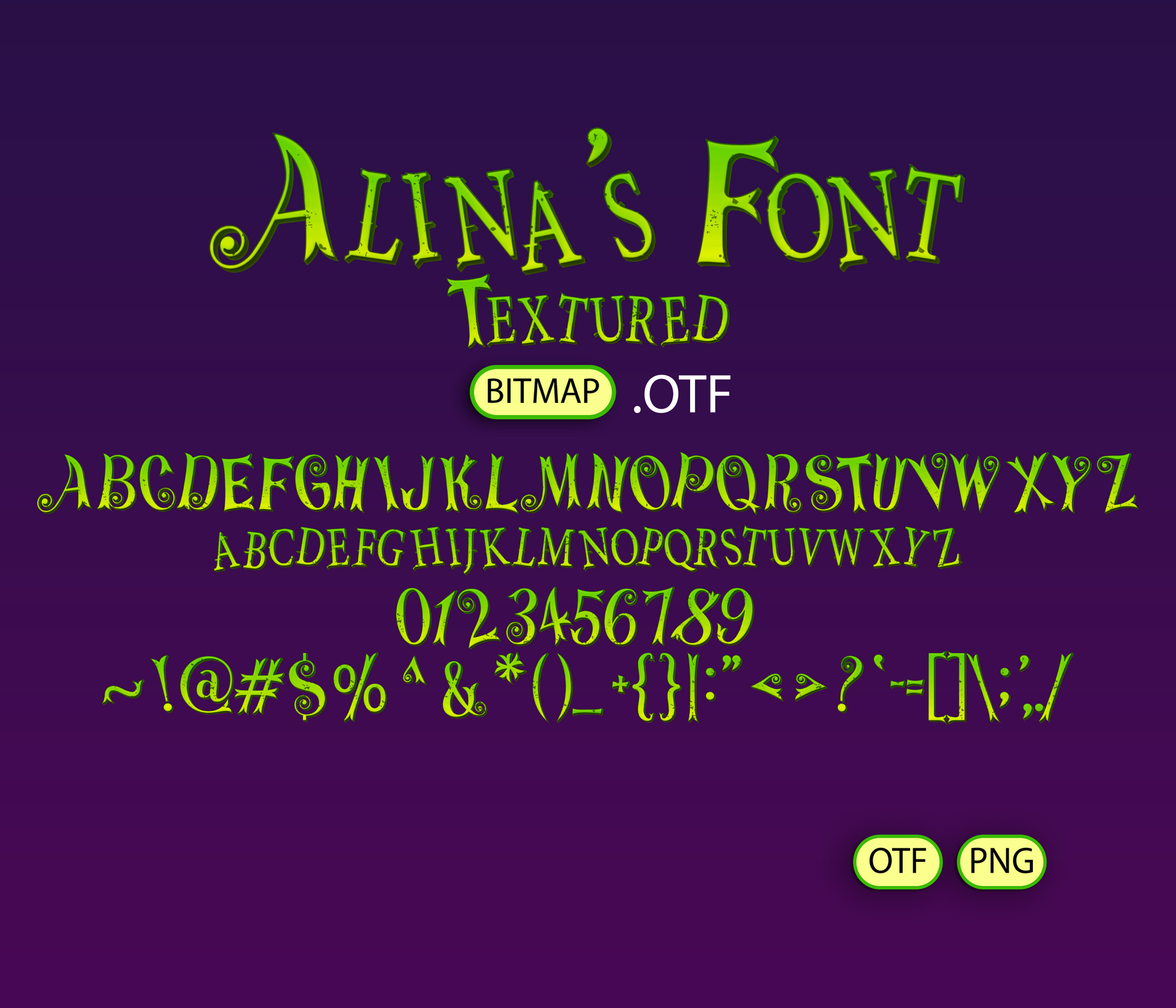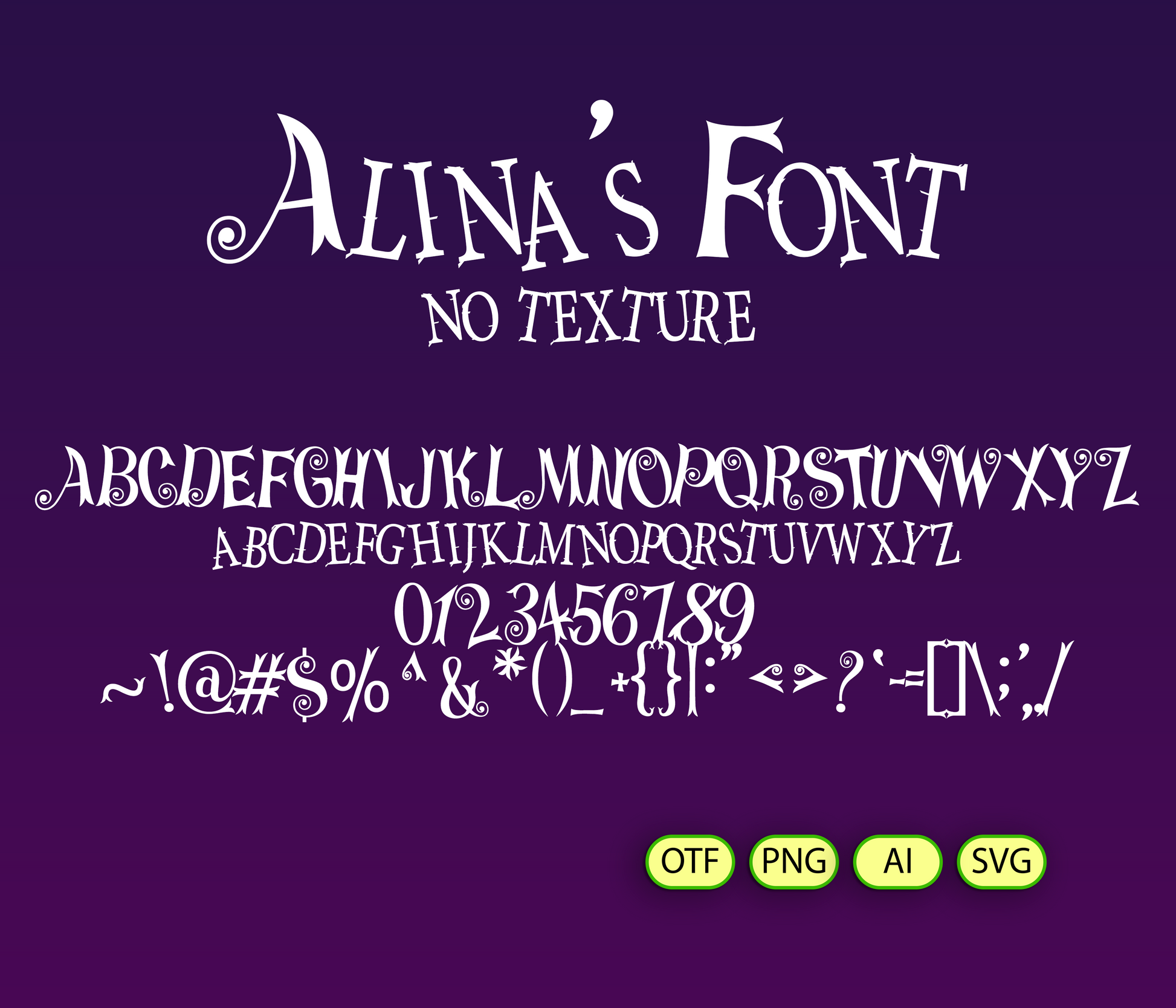
Afterlife Trickster Sequel Font Textured
Afterlife Trickster Sequel Font Textured Beetlejuice Font
Step into the chaotic, eccentric world of our beloved supernatural prankster with our specially designed font, capturing the essence of the long-awaited sequel. Perfect for fans, event organizers, and designers, this font brings the mischievous, otherworldly spirit of the ghostly trickster to your projects. Create event invitations, themed merchandise, or digital content with the zany, off-kilter energy of this spooky follow-up.
What is the Afterlife Trickster Sequel font?
Our font is a visual representation of the quirky, gothic aesthetic that defines the supernatural comedy franchise. It features distorted, playful letterforms that seem to writhe and twist, as if brought to life by the bio-exorcist himself. Each character exudes a perfect blend of horror and humor, ideal for projects that aim to capture the unique tone of the original film and its highly anticipated sequel.
What You Can Do With Afterlife Trickster Sequel Textured Font
- Textured and Non-Textured Variants: Available in both a grungy, otherworldly style and a clean, non-textured version for diverse design needs.
- Comprehensive Character Set: Offers a wide range of characters, including spooky alternatives and ligatures.